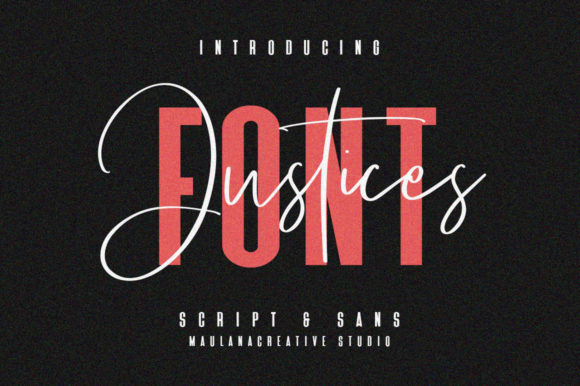
In a world saturated with digital monotony, introduce yourself to Justices Font, a remarkable duo font set to transform your creative journey. Step into the realm of visual enchantment as Justices Font graces your designs with a captivating blend of sans serif and script. Let its bold strokes and graceful curves ignite your imagination.
The sans serif font exudes modernity and sophistication, providing a solid foundation for your designs. Its clean lines and crisp edges demand attention, ensuring your messages stand out with authority. The script font, on the other hand, invites a touch of elegance and charm. Its flowing lines and intricate flourishes add a touch of whimsy and artistry, making every word a visual delight.
Harness the power of Justices Font to elevate your music-themed designs to unprecedented heights. Let its enchanting melodies dance across your posters, album covers, and song lyrics, creating a symphony of visual harmony. Whether you're crafting a bold poster for an upcoming concert or designing an eye-catching album cover that reflects the soul of your music, Justices Font is the perfect maestro to orchestrate your creative vision.
Transport your audience to a world of enchantment with the magic of Justices Font. Allow its enchanting characters to narrate your love stories, weave tales of adventure, or capture the essence of heartfelt emotions. Let every word become a brushstroke, painting vivid pictures in the minds of your readers.
Break free from the mundane and embrace the extraordinary with Justices Font. Embark on a journey of creativity where words and designs fuse seamlessly, leaving an enduring impact on your audience. Discover the allure of this captivating font duo and unlock a world of endless possibilities.